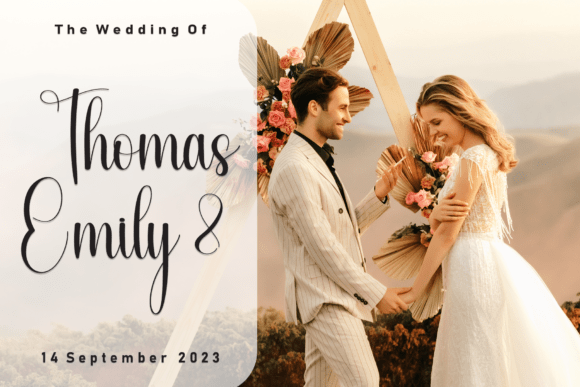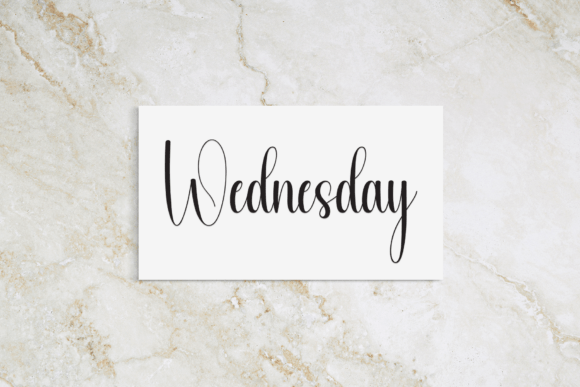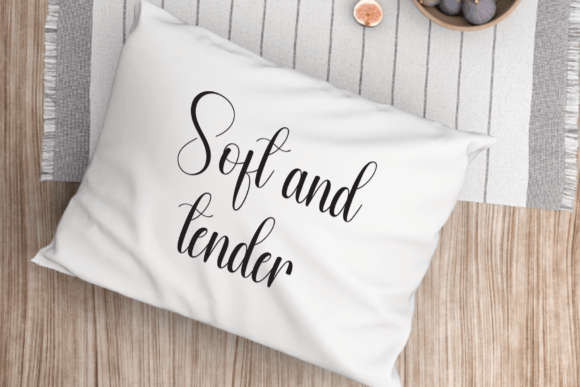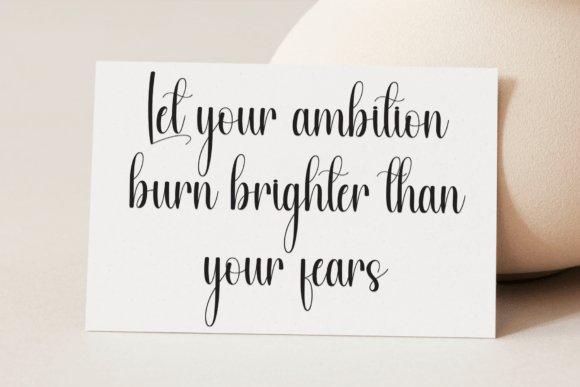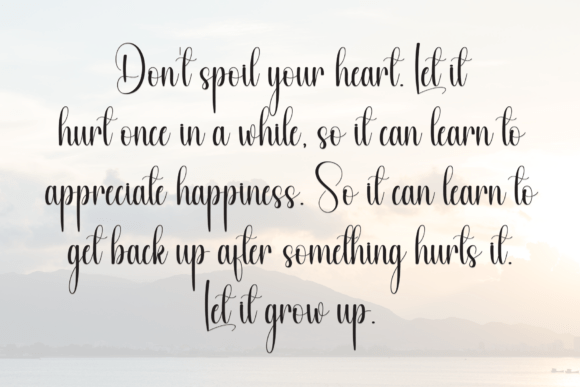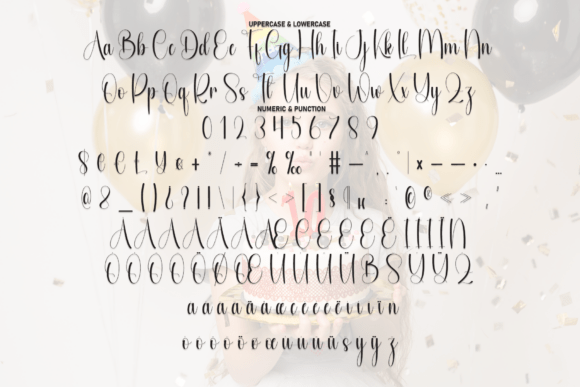
Introducing Birthday Font: Elevate Your Designs with Fresh Elegance
Are you searching for a font that embodies the spirit of celebration and new beginnings? Look no further than Birthday Font, a stylish handwritten script font that exudes fresh elegance and delicate charm. With its flowing strokes and graceful curves, this lovely typeface is perfect for adding a soft, personal touch and uplifting feel to any project.
The Perfect Font for Invitations and Seasonal Designs
Birthday Font is specifically designed to evoke a sense of renewal, making it an ideal choice for invitations, branding, and seasonal designs. Whether you’re creating a birthday invitation, a wedding announcement, or a festive holiday card, this font is sure to impress. Its elegant and refined appearance will add a touch of sophistication to your designs, making them truly unforgettable.
What Makes Birthday Font So Special?
So, what sets Birthday Font apart from other fonts? Here are just a few features that make it a standout:
- Flowing Strokes: Birthday Font features smooth, flowing strokes that give it a sense of movement and fluidity.
- Graceful Curves: The font’s gentle curves and rounded edges add a touch of softness and approachability.
- Elegant Appearance: Birthday Font’s refined and sophisticated appearance makes it perfect for high-end designs and luxury brands.
- Versatile: This font can be used for a wide range of projects, from invitations and branding to seasonal designs and more.
How to Use Birthday Font in Your Designs
Birthday Font is incredibly versatile and can be used in a variety of design applications. Here are a few ideas to get you started:
- Invitations: Use Birthday Font to create beautiful, one-of-a-kind invitations for birthdays, weddings, and other special occasions.
- Branding: Add a touch of elegance to your brand with Birthday Font, perfect for luxury brands, boutiques, and small businesses.
- Seasonal Designs: Use Birthday Font to create festive and eye-catching designs for holidays like Christmas, Easter, and Halloween.
- Digital Art: Experiment with Birthday Font in your digital art projects, such as illustrations, graphics, and mixed media.
Tips for Getting the Most Out of Birthday Font
To make the most of Birthday Font, here are a few tips to keep in mind:
- Experiment with Sizes: Birthday Font looks great in a variety of sizes, from large headings to smaller body text.
- Play with Colors: Try pairing Birthday Font with different colors and textures to add depth and interest to your designs.
- Mix and Match: Combine Birthday Font with other fonts to create a unique and eye-catching typography.
- Handwritten script font
- Flowing strokes and graceful curves
- Elegant and refined appearance
- Perfect for invitations, branding, and seasonal designs